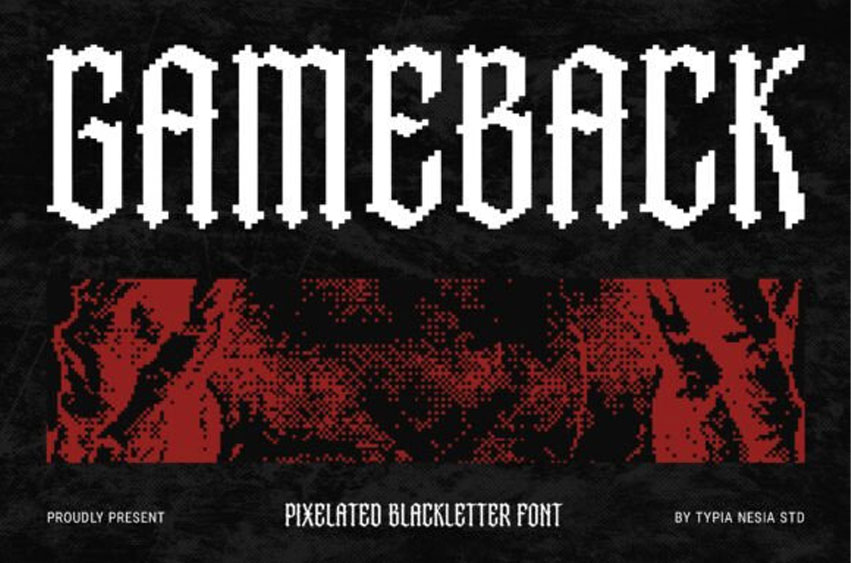
Gameback Font is a powerfully unique modern pixelate blackletter game font that delivers the striking, historical elegance of Gothic script combined with the gritty, deep nostalgia of the 80s arcade era.
This exceptional display font flawlessly merges two distinct worlds, featuring a towering, condensed structure and a distinctive 8-bit pixel texture that gives the Gameback font an immediate retro-futuristic appeal.
This unique blend makes the Gameback typeface perfect for crafting impactful logo designs, intense video game titles, dynamic music branding, digital media interfaces, and eye-catching event posters.
The strong character of this pixelated blackletter font is designed for high-visibility print and projects that require a touch of modern nostalgia alongside a classically powerful aesthetic. Ready to retrofit your future? Download Gameback today to ensure your design is both bold and uniquely memorable in your next creative venture.